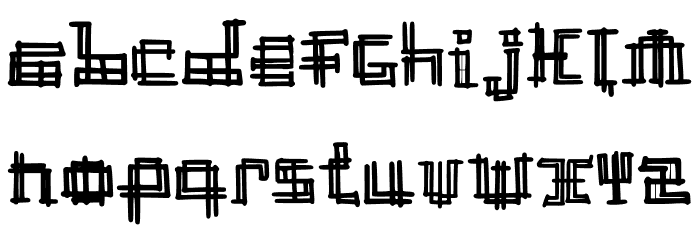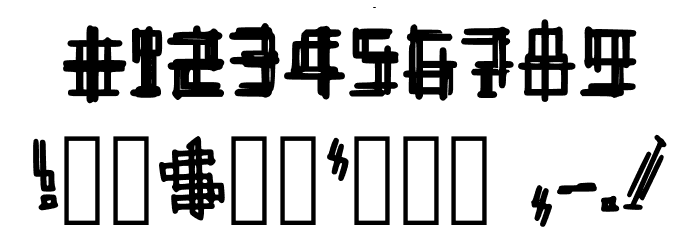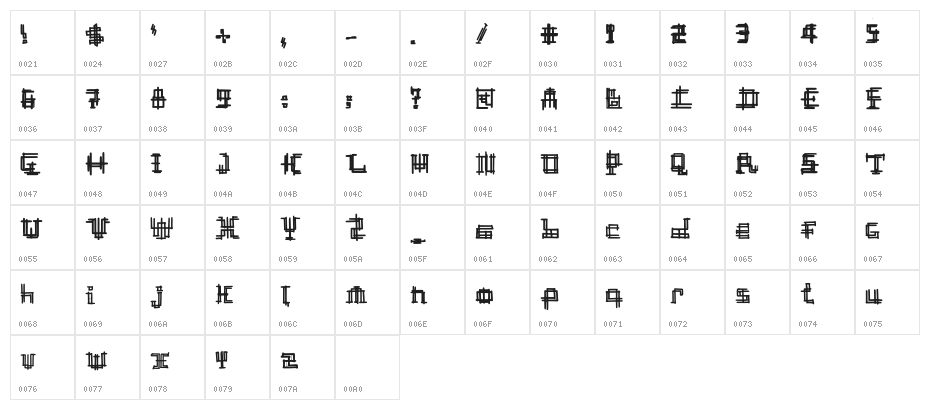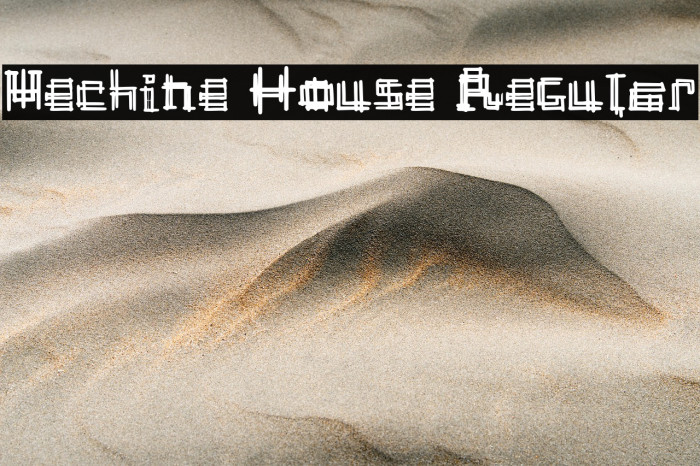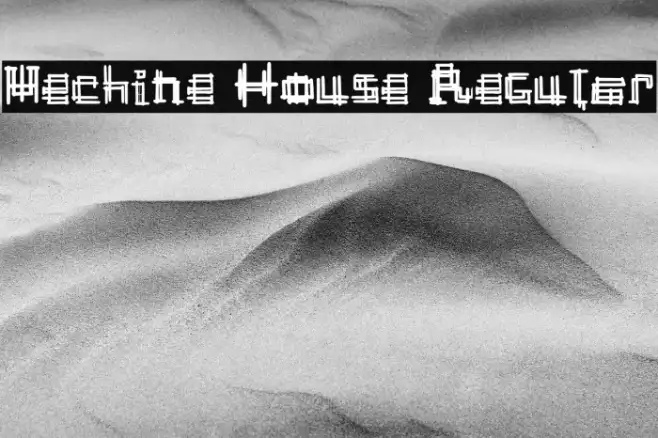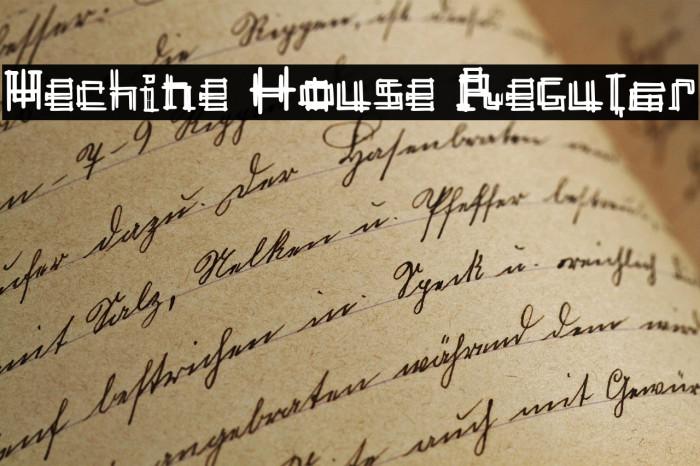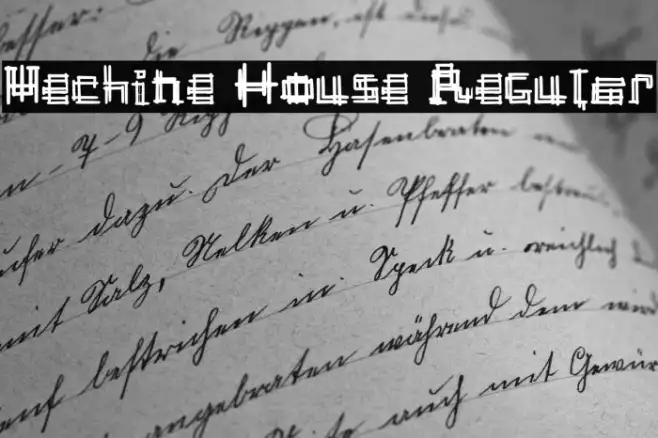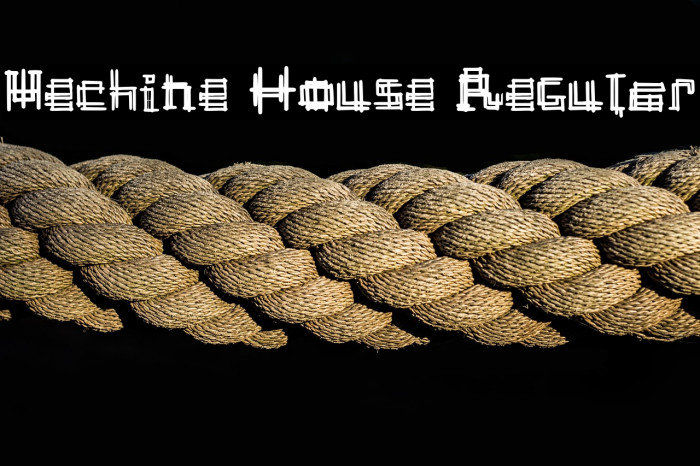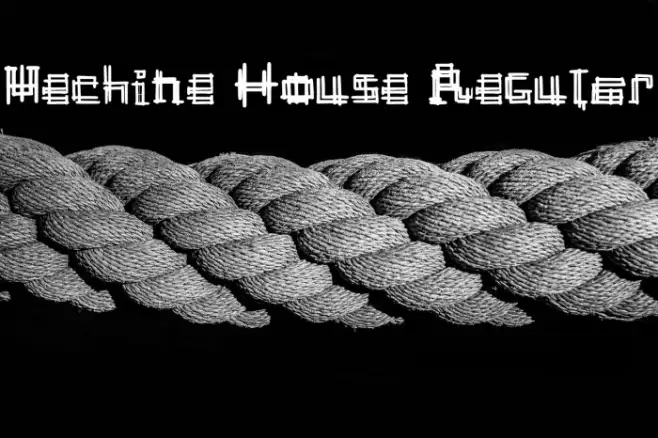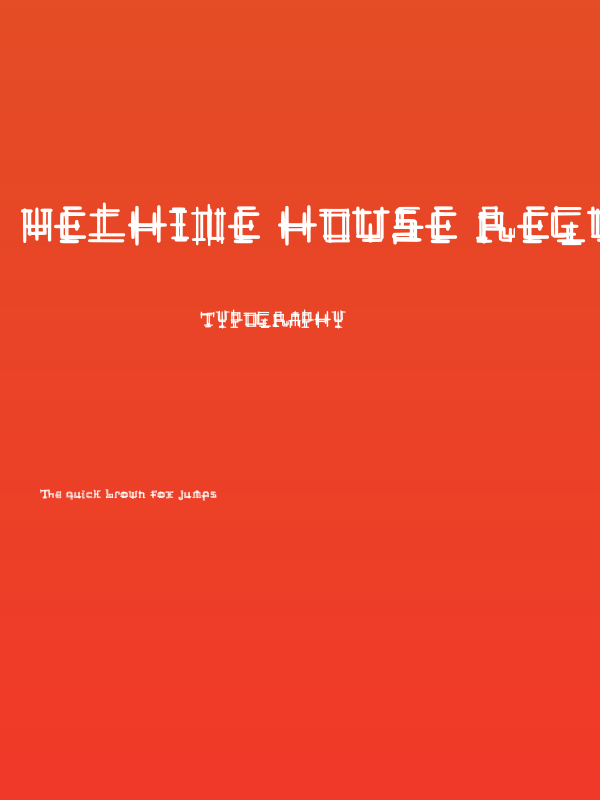
Mechine House Regular Font
This font features a highly decorative and mechanical style, characterized by its intricate and complex design. Each character is composed of multiple overlapping lines and geometric shapes, creating a sense of depth and structure. The font has a bold and striking appearance, with a consistent thickness throughout the strokes. Its unique design elements give it a futuristic and industrial feel, making it stand out in any application. The characters are tightly spaced, enhancing the compact and dense look of the font. This style is particularly suitable for projects that require a strong visual impact and a modern, edgy aesthetic.
A bold, mechanical font with intricate geometric designs and a futuristic feel.
- Font: Mechine House Regular
- Proposed Projects: Ideal for sci-fi themed posters, video game titles, industrial branding, and tech-related logos.
- Character Spacing: Tight
- Overall Style: Futuristic, Industrial